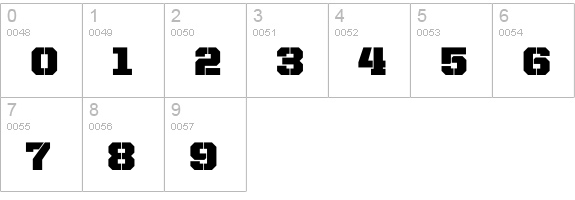
United Serif Reg Stencil Font Details
United Serif Reg Stencil font is a beautifully designed typeface that combines the elegance of serifs with the boldness of stencils. This unique fusion creates a distinct visual appeal that is sure to make a statement in any design project. The clean lines and carefully crafted letterforms of United Serif Reg Stencil font exude sophistication and professionalism. Its balanced proportions and subtle details make it a versatile choice for a wide range of applications, from branding and packaging to editorial design and signage. One of the standout features of United Serif Reg Stencil font is its versatility. It effortlessly transitions between traditional and contemporary aesthetics, making it suitable for both classic and modern designs. Whether you're working on a vintage-inspired poster or a sleek corporate identity, this font has you covered. But what truly sets United Serif Reg Stencil font apart is the fact that it is available for free. You can easily download this font from FontsMarket.com, a reputable source for high-quality fonts. This means that you can enjoy all the benefits of this exceptional typeface without any cost, making it an ideal choice for designers on a budget or anyone looking to add a touch of elegance to their projects. With its striking appearance, impeccable craftsmanship, and the added bonus of being freely available, United Serif Reg Stencil font is a must-have for any designer's toolkit. So why wait? Download this font today and take your designs to the next level.